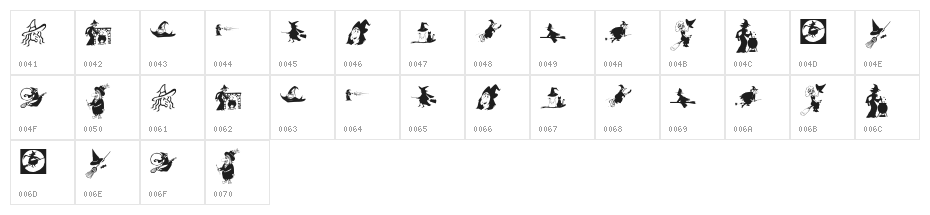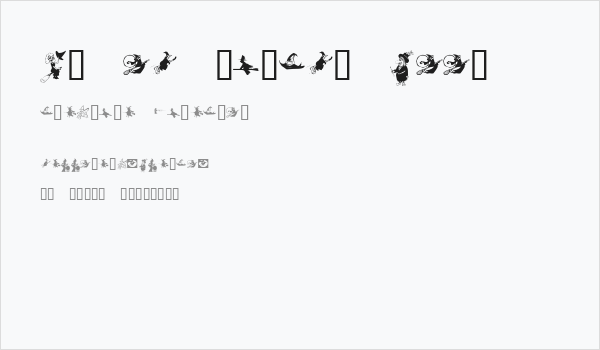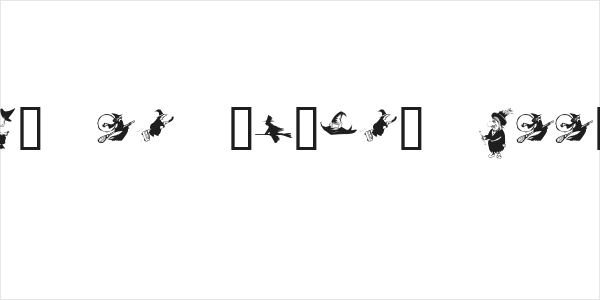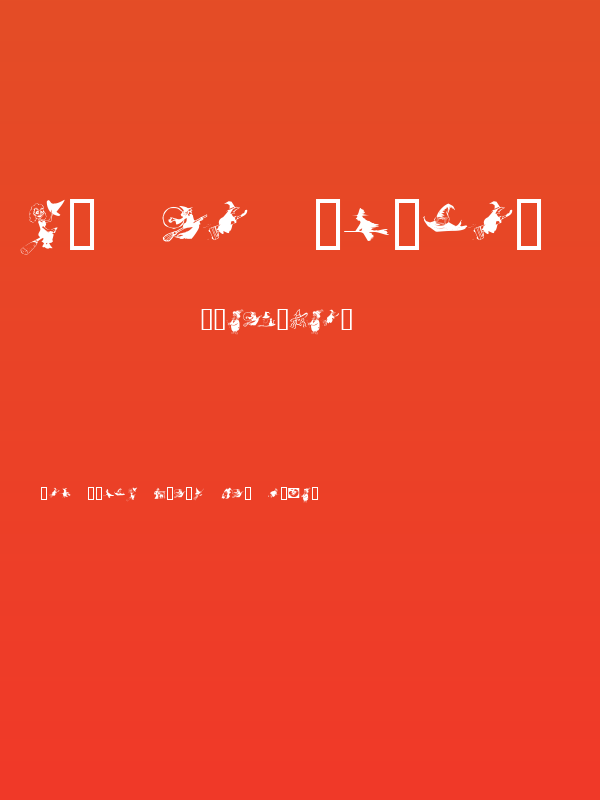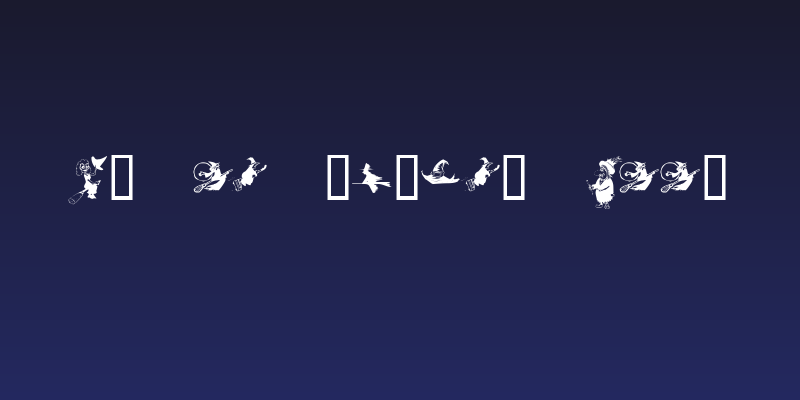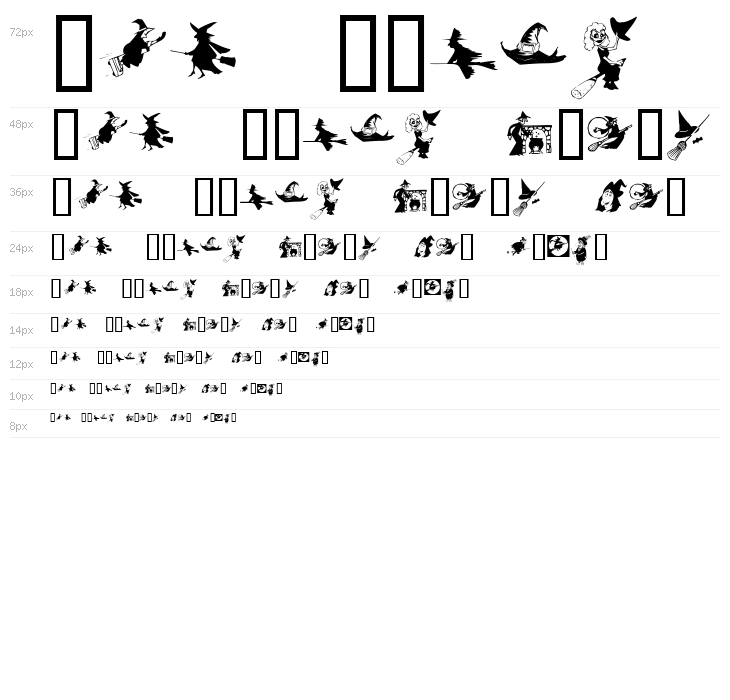
KR Oh Witchy Poo! Font
KR Oh Witchy Poo! Description
This font is a whimsical and playful collection of witch-themed illustrations. Each character is represented by a unique and detailed drawing, featuring witches in various poses and activities, such as flying on broomsticks, casting spells, and interacting with cauldrons. The style is cartoonish and fun, with bold lines and expressive details that capture the essence of a magical, Halloween-inspired theme. The illustrations are consistent in style, making them suitable for decorative purposes where a spooky or enchanting atmosphere is desired.
| Use Case | Logos, Invitations, Posters, Themed Events |
| Proposed Projects | Ideal for Halloween party invitations, themed decorations, children's storybooks, and any project requiring a touch of magic and whimsy. |